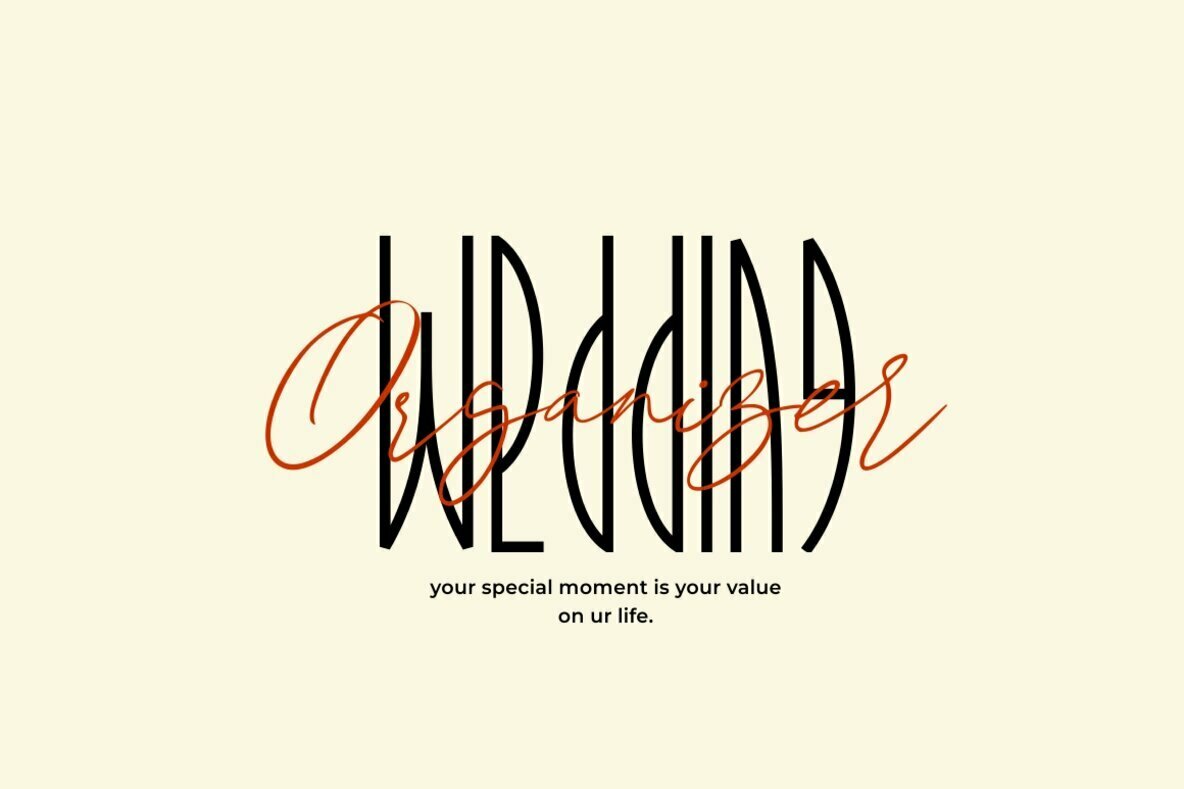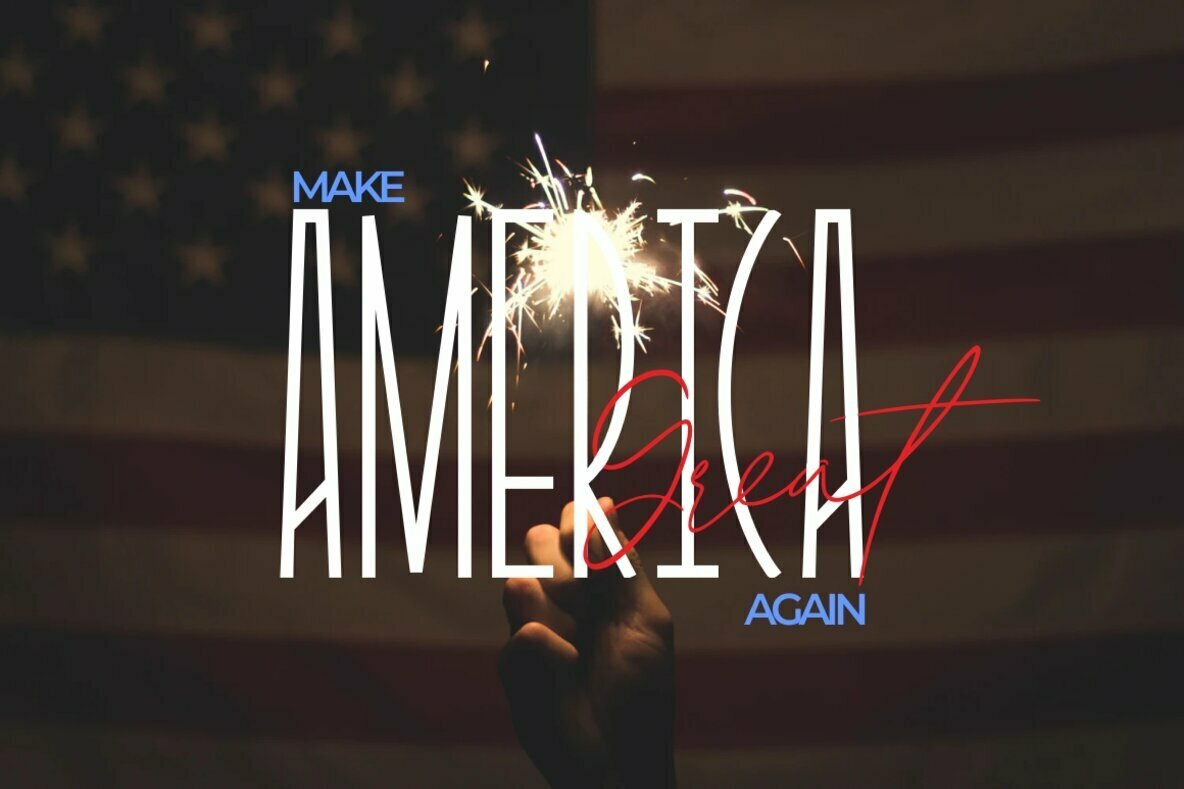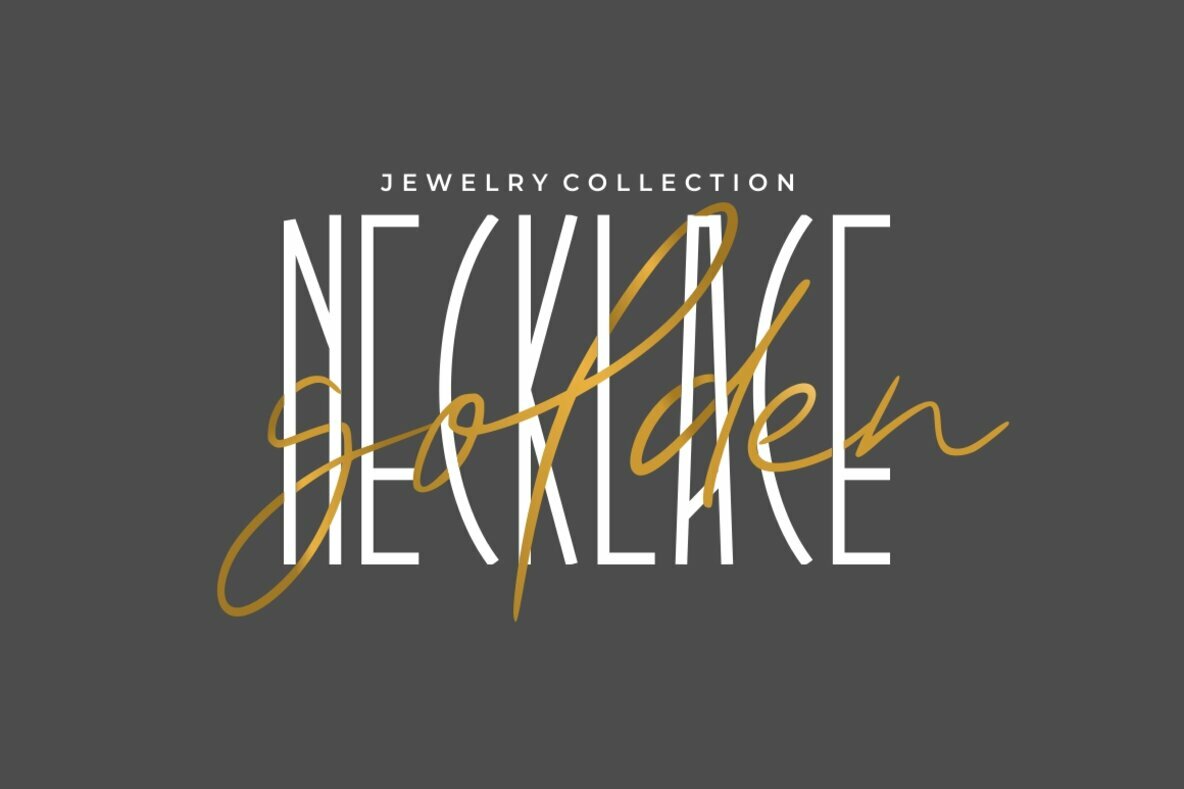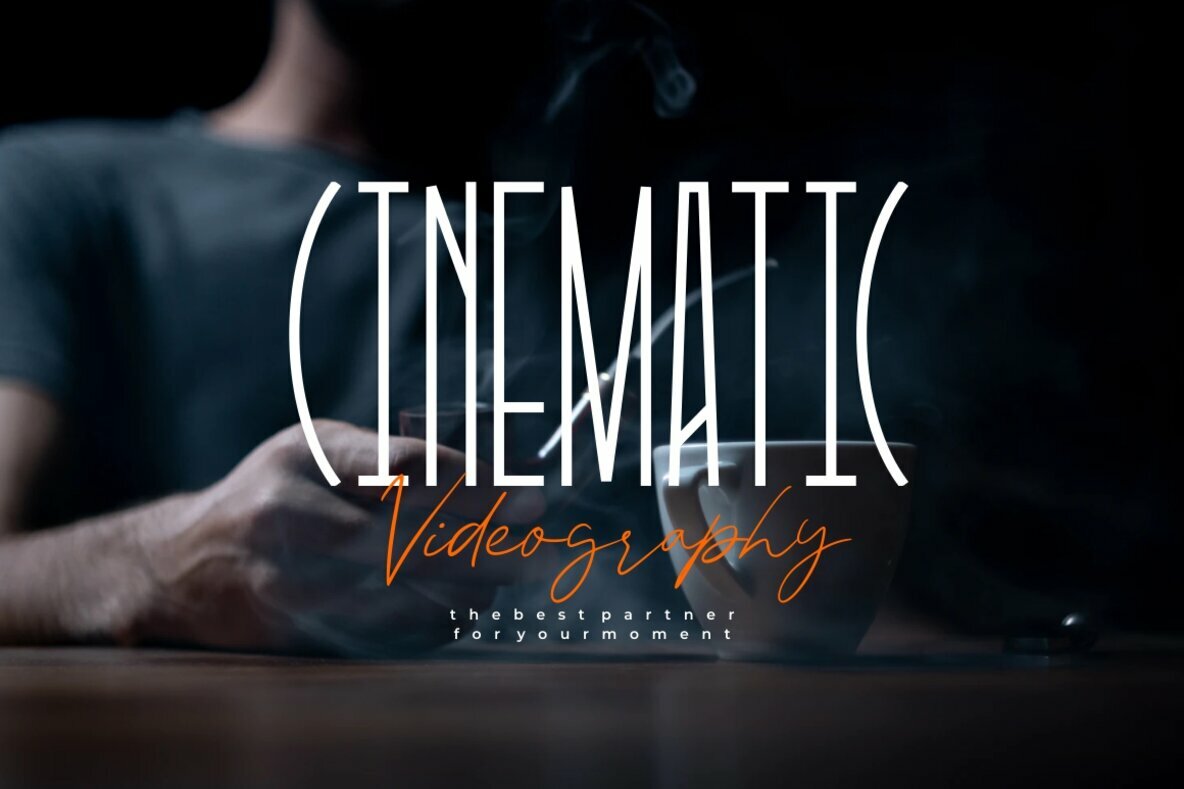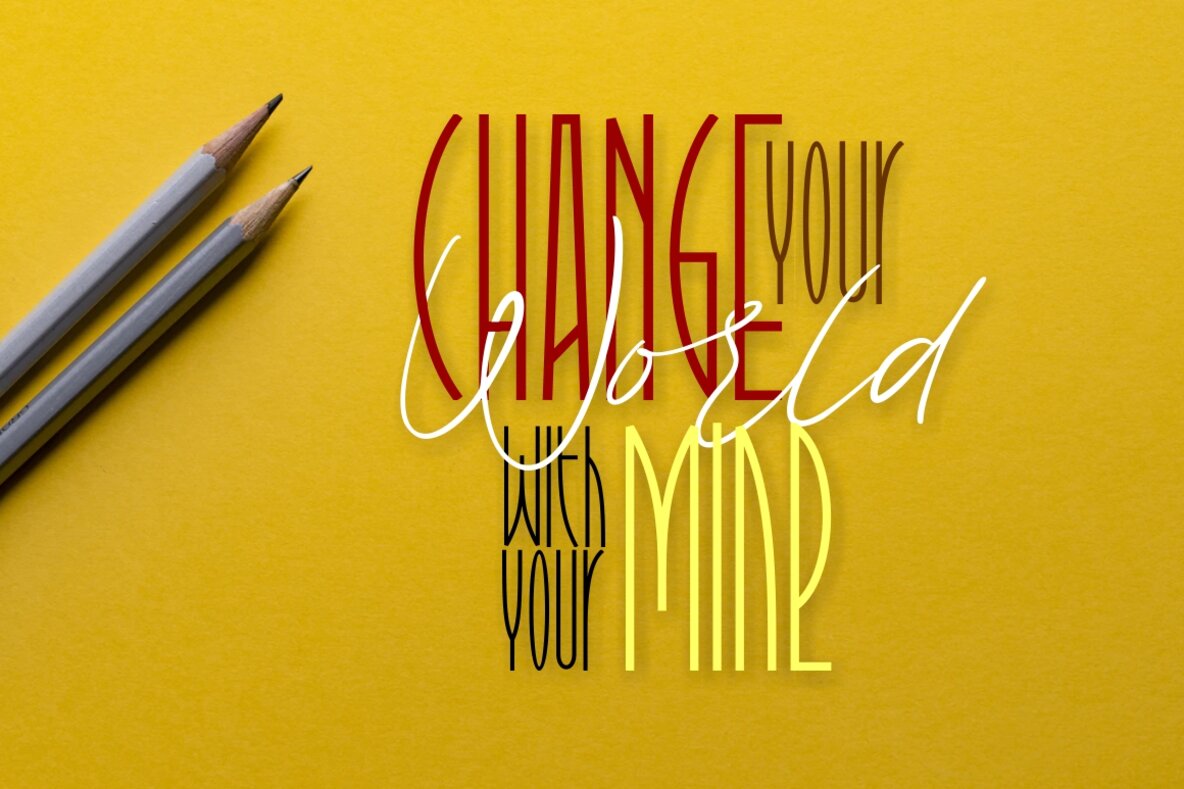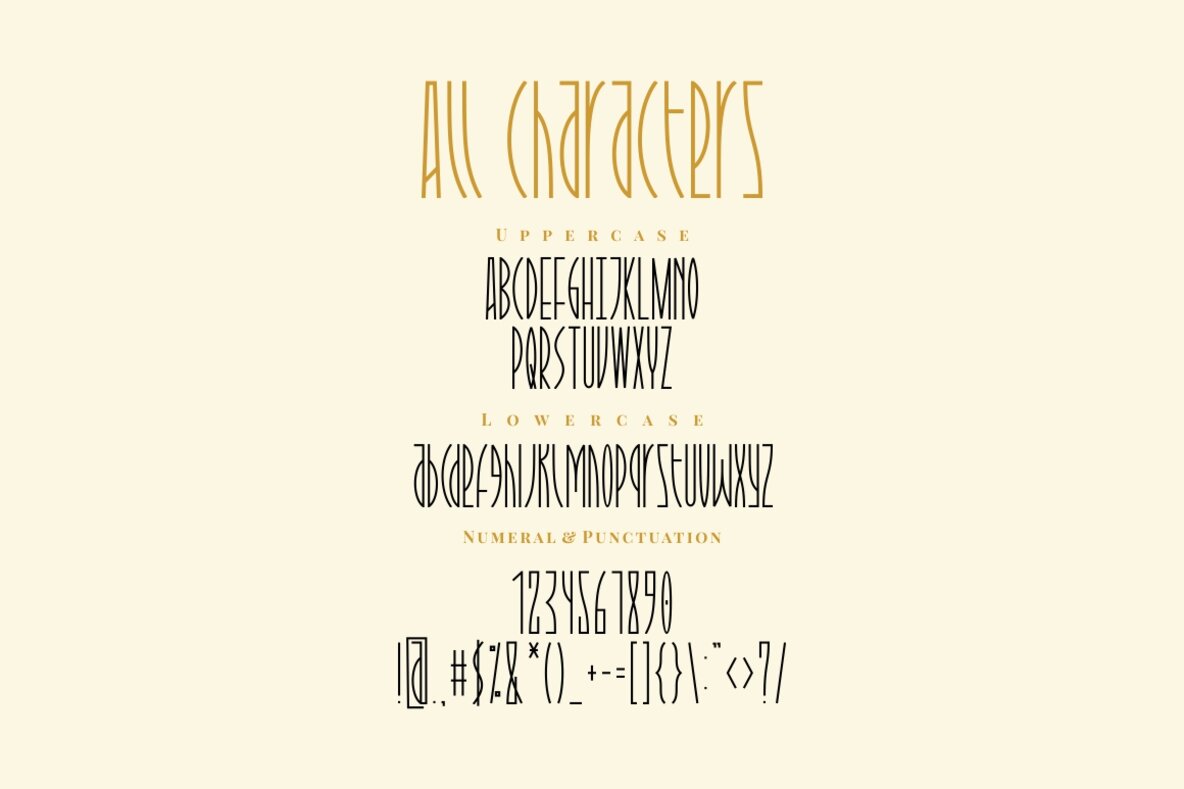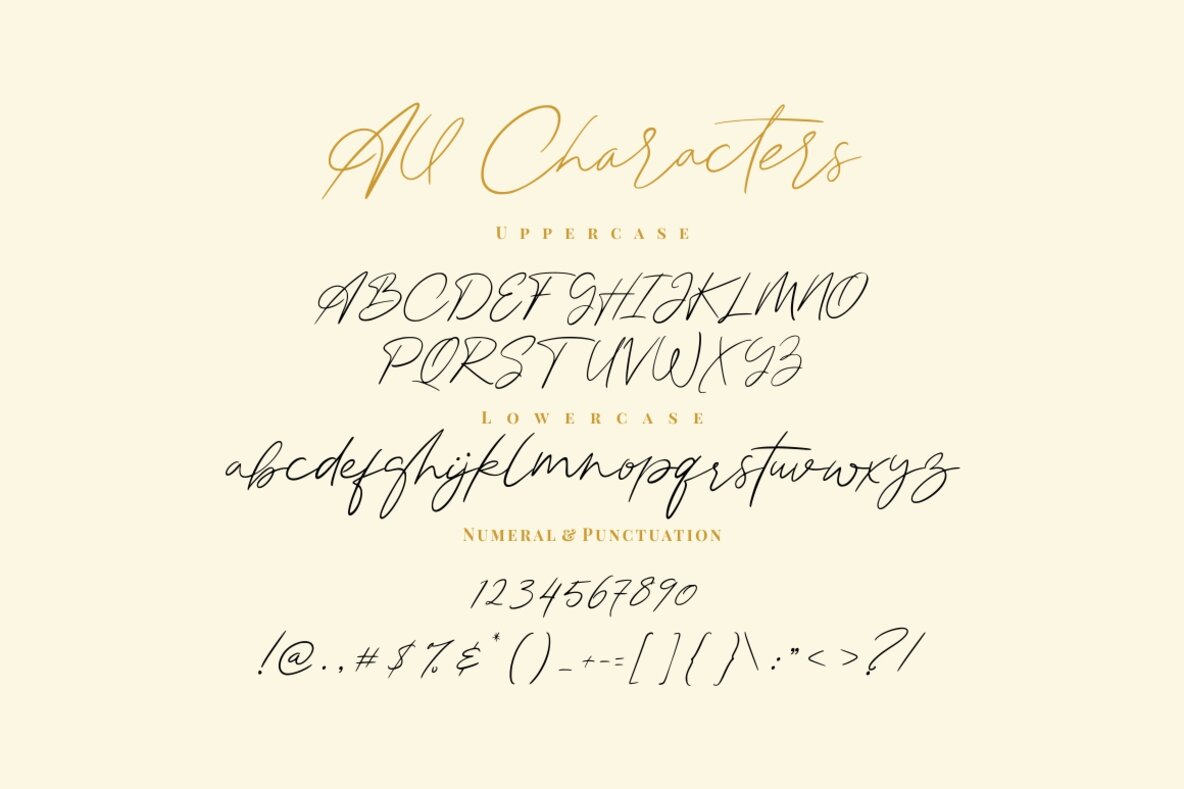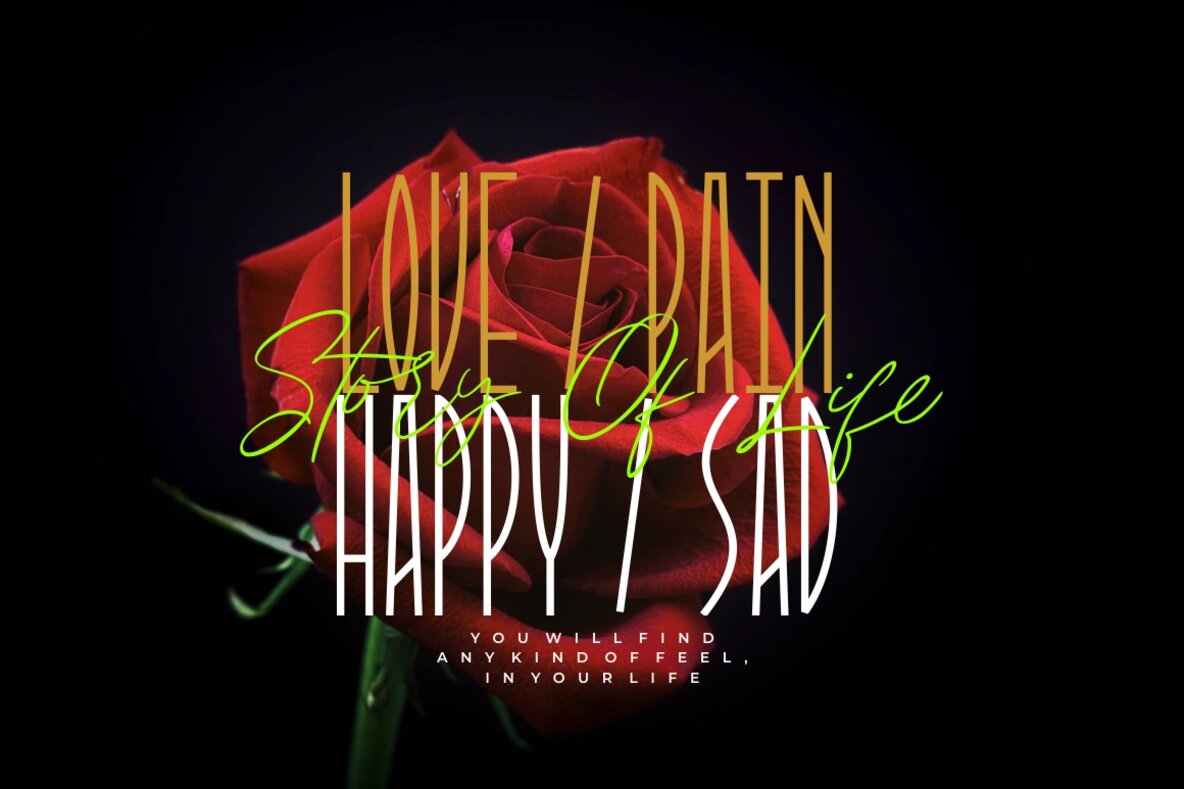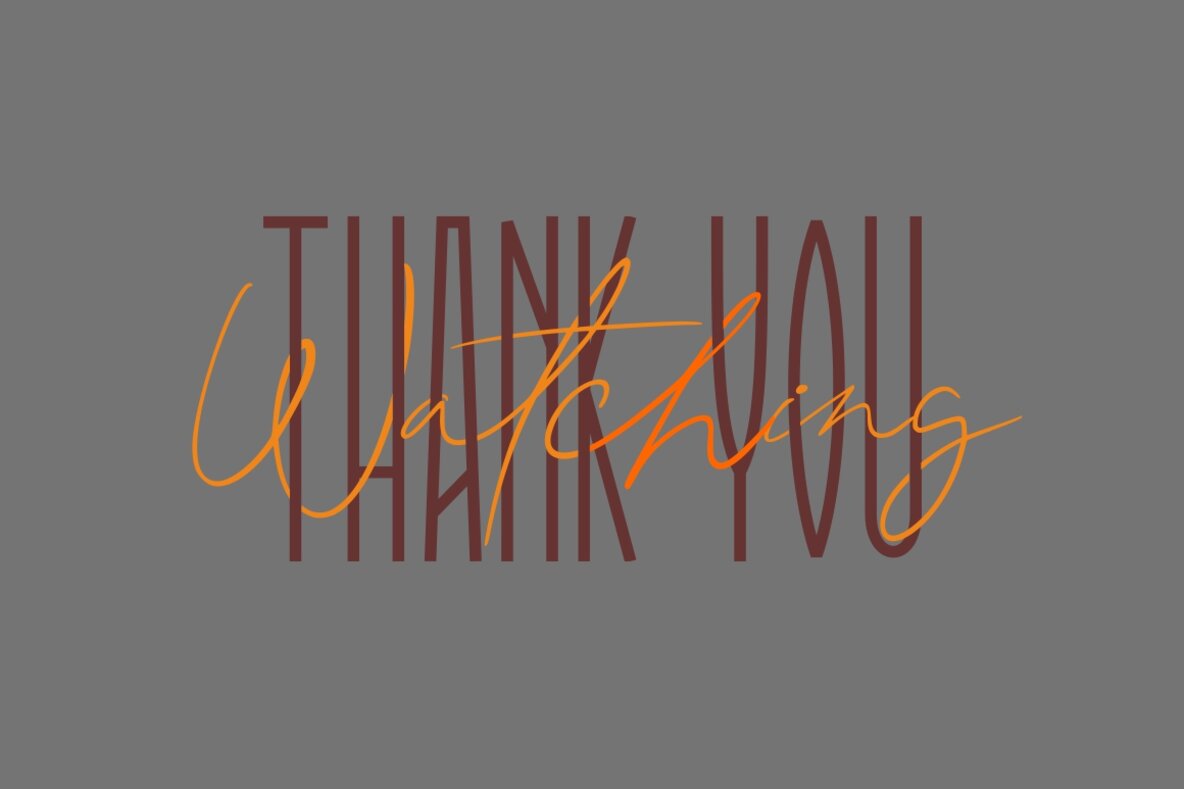
Attaira Font Duo
The Attaira Font Duo by Putra Novembria Candra Kusuma offers a distinctive blend of display and signature fonts. These fonts interact seamlessly, providing exceptional versatility for various design projects. Ideal for signature designs, weddings, and social media, Attaira also lends itself beautifully to stationery, logos, and typography quotes. The fonts extend their elegance to magazine and book covers, website headers, and clothing lines, effortlessly enhancing any branding and packaging design.Attaira Font Duo: A Unique Display and Signature Pair